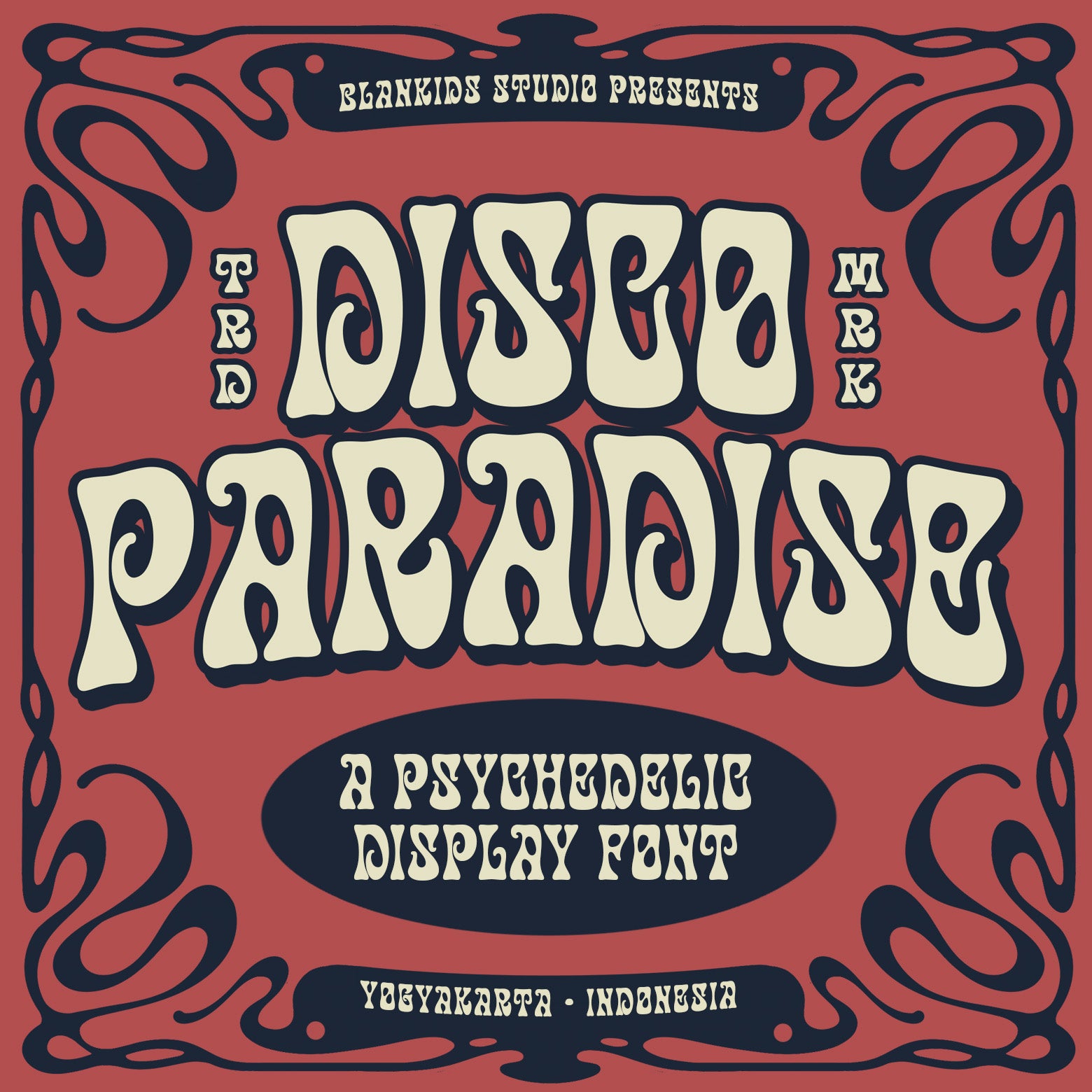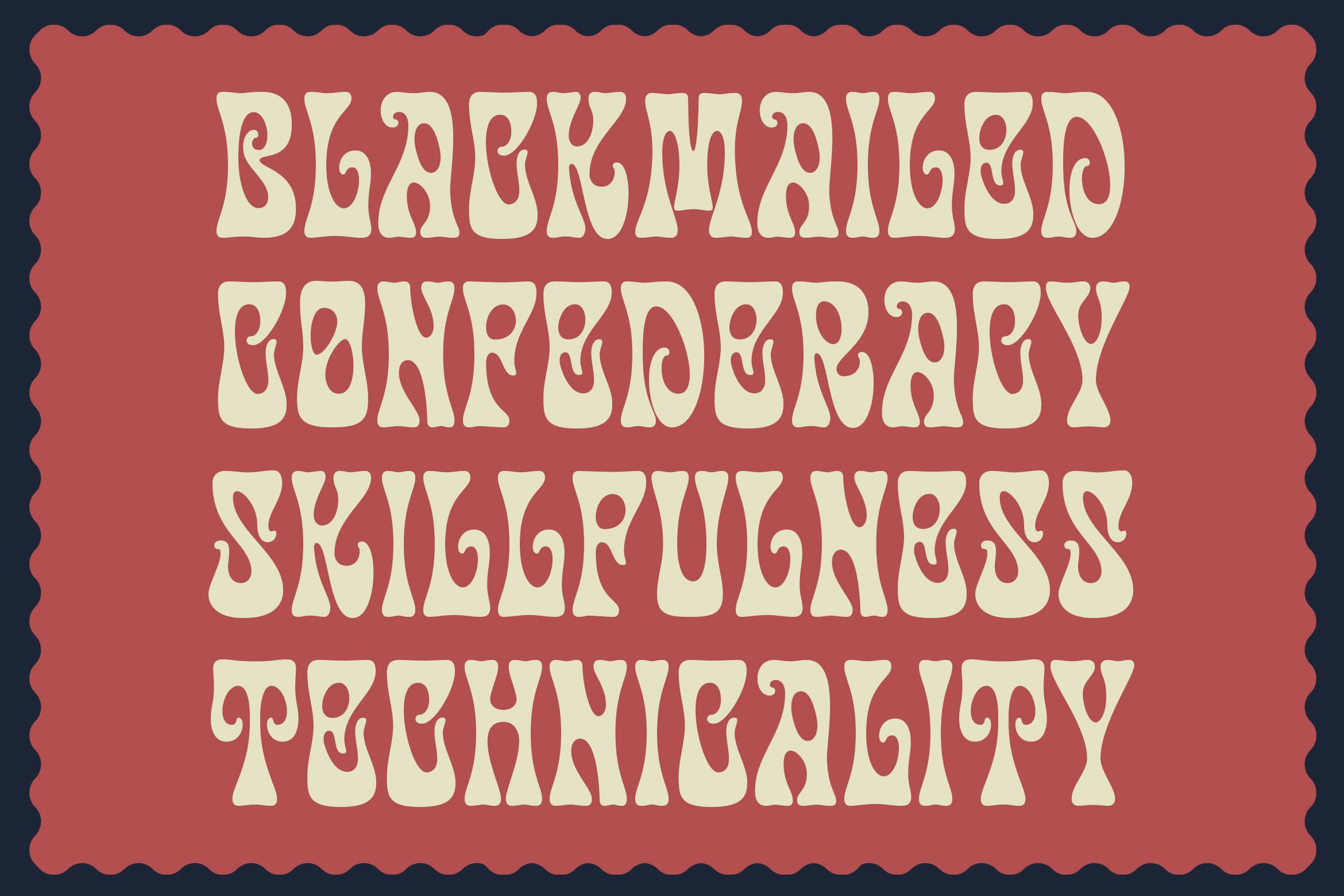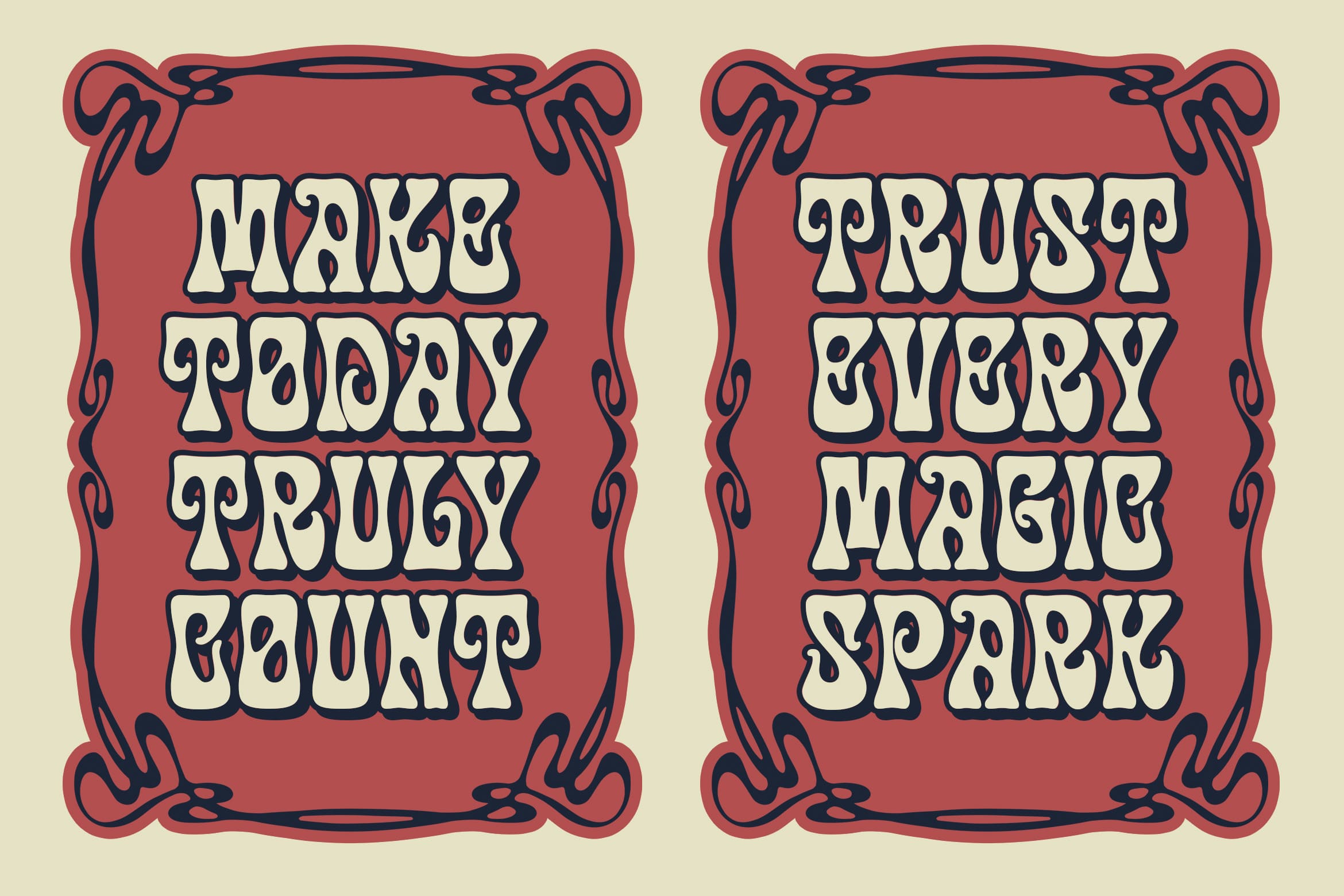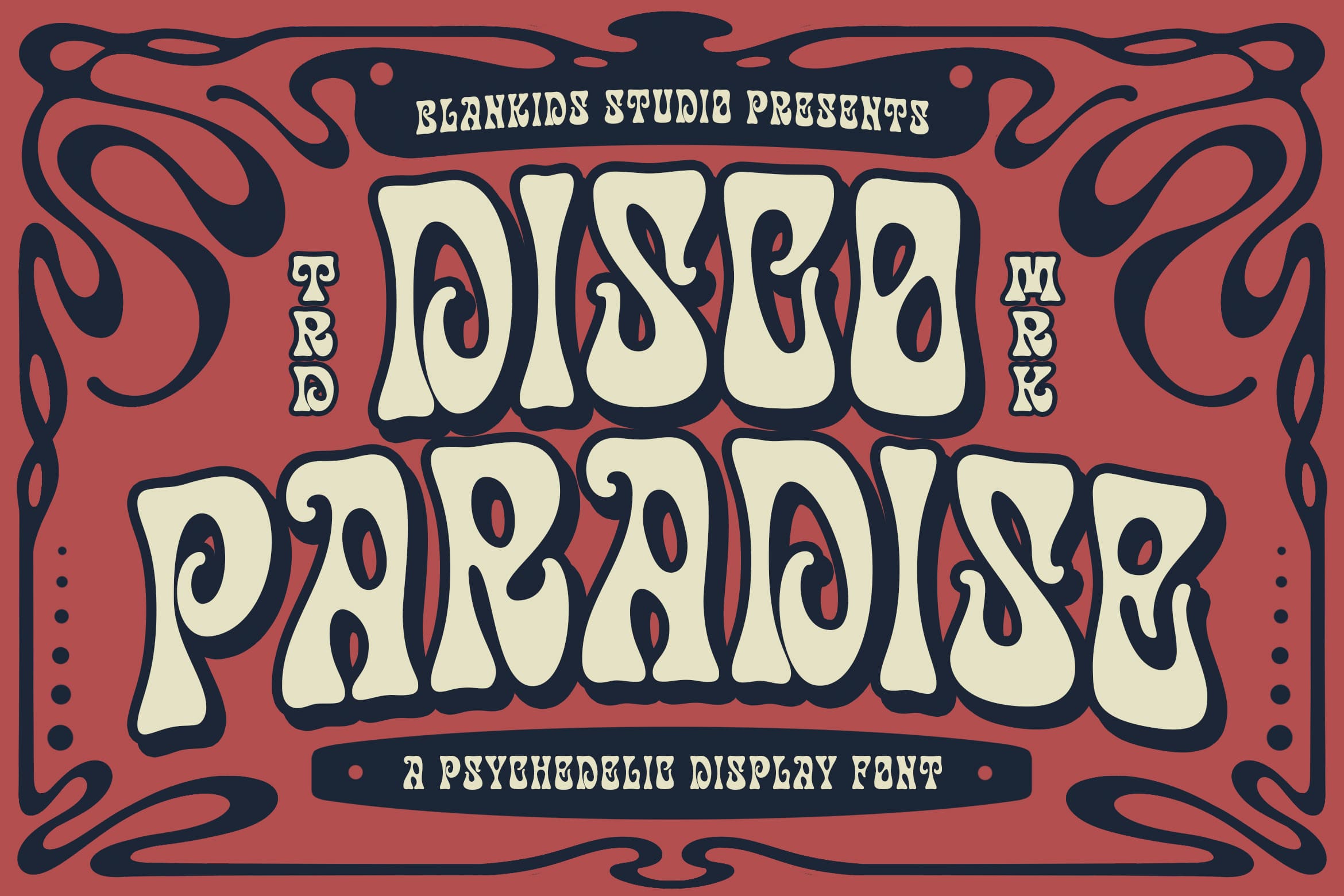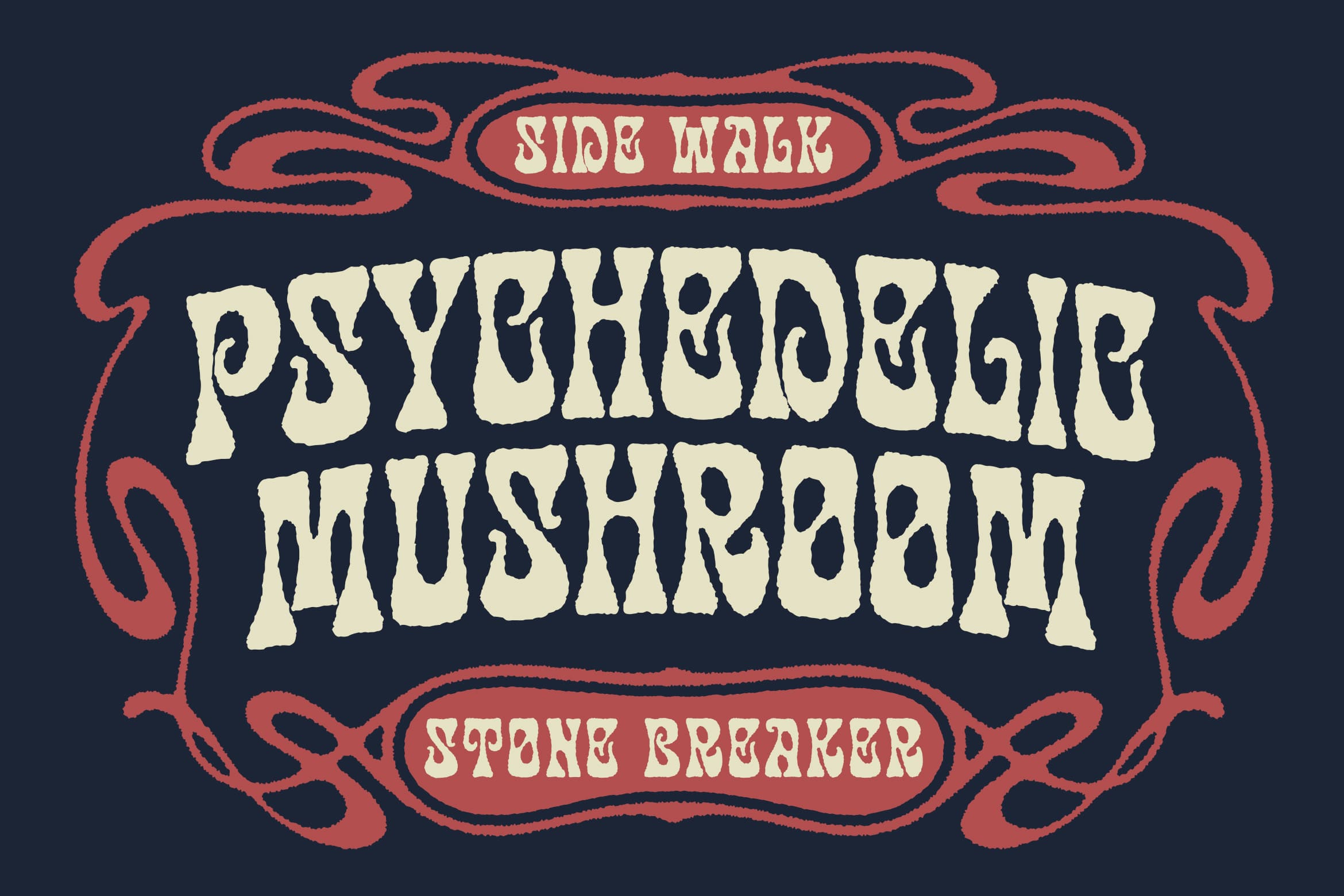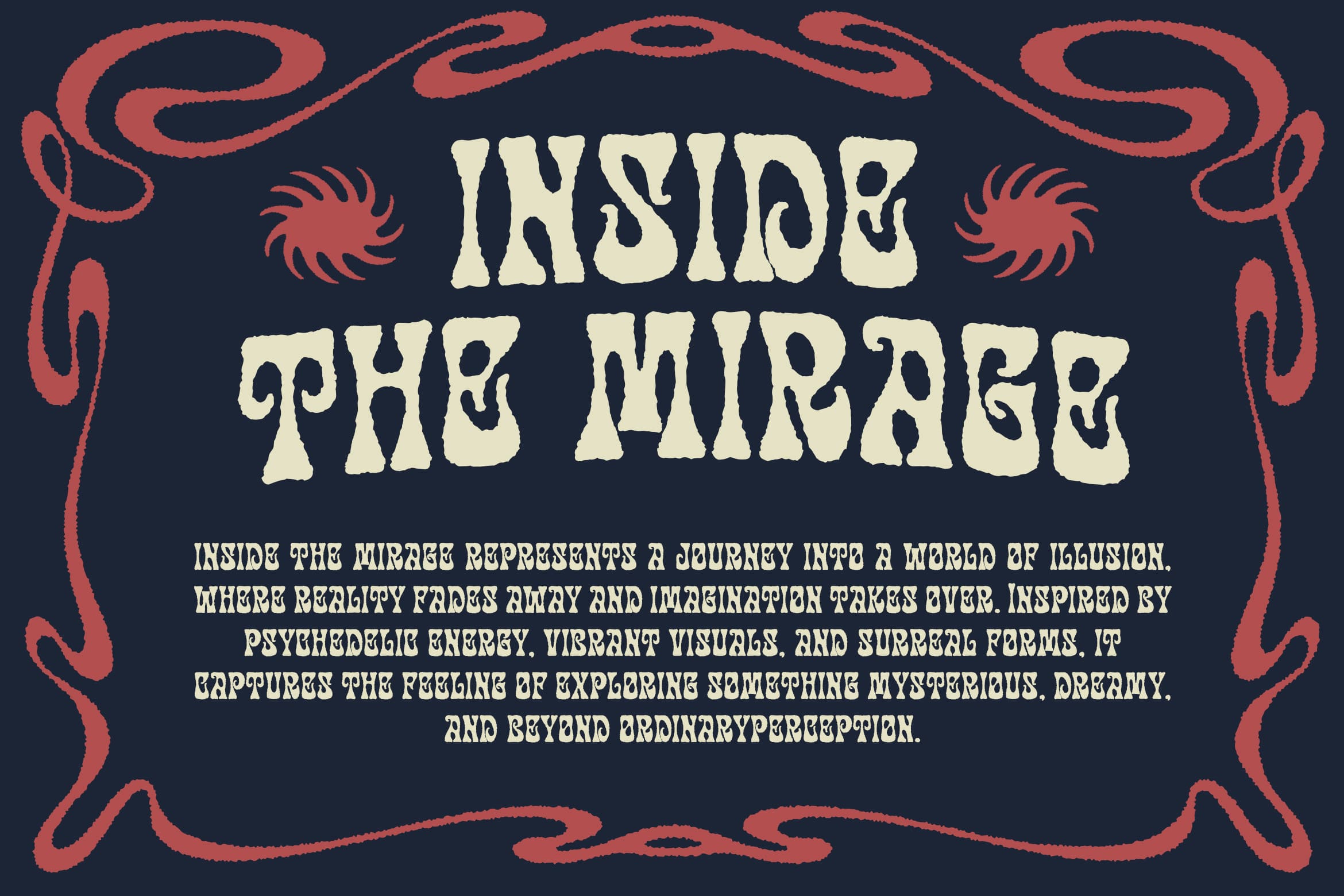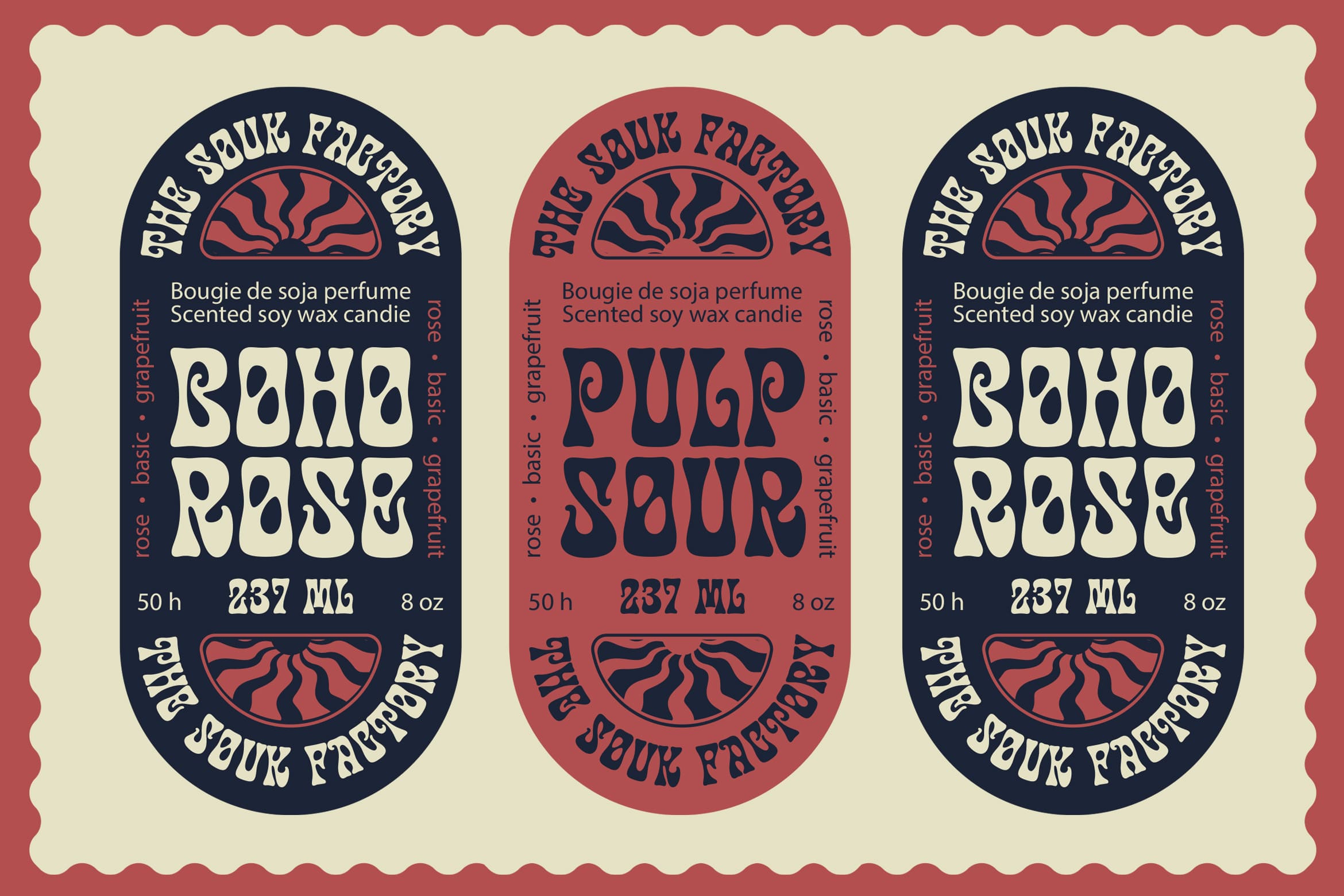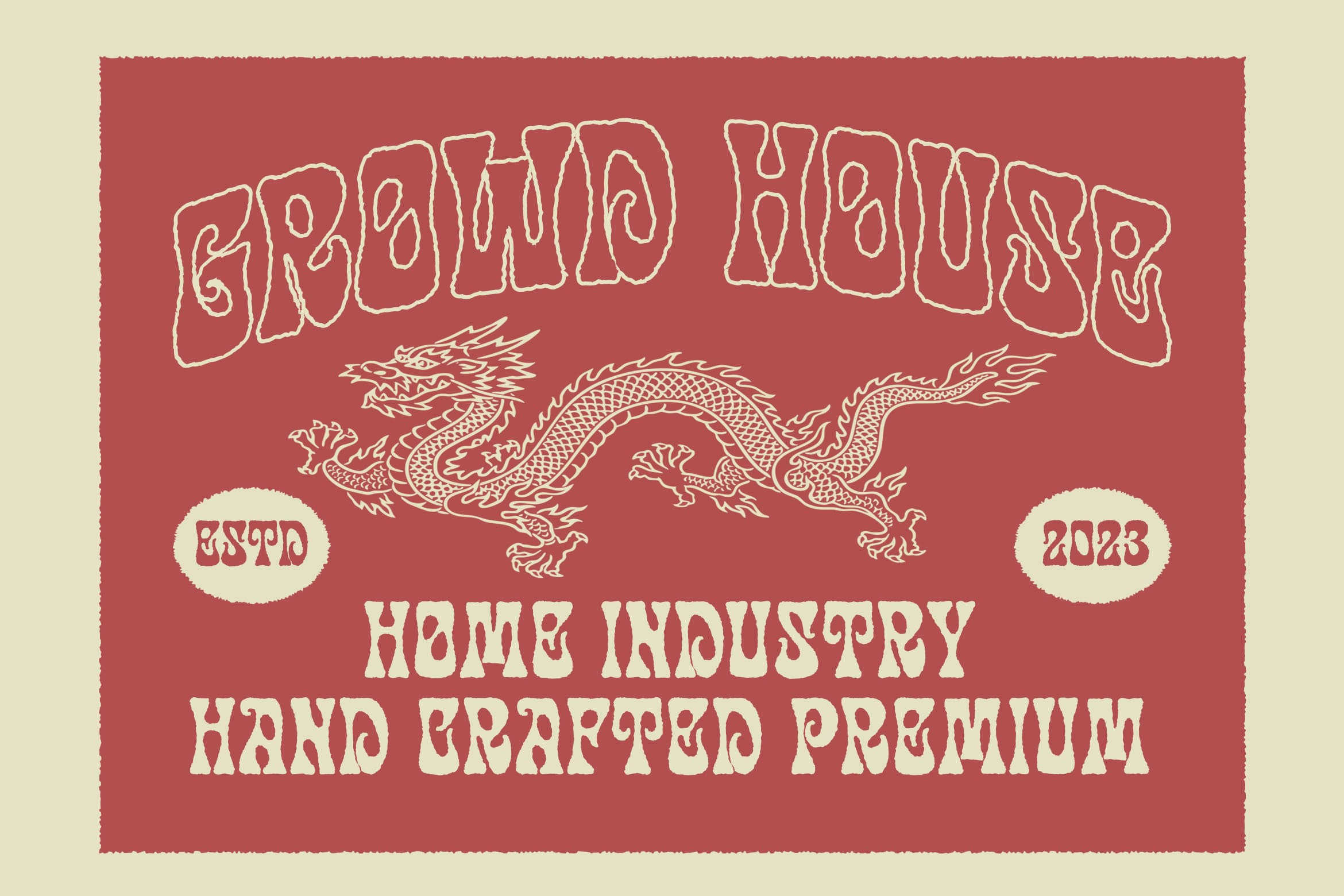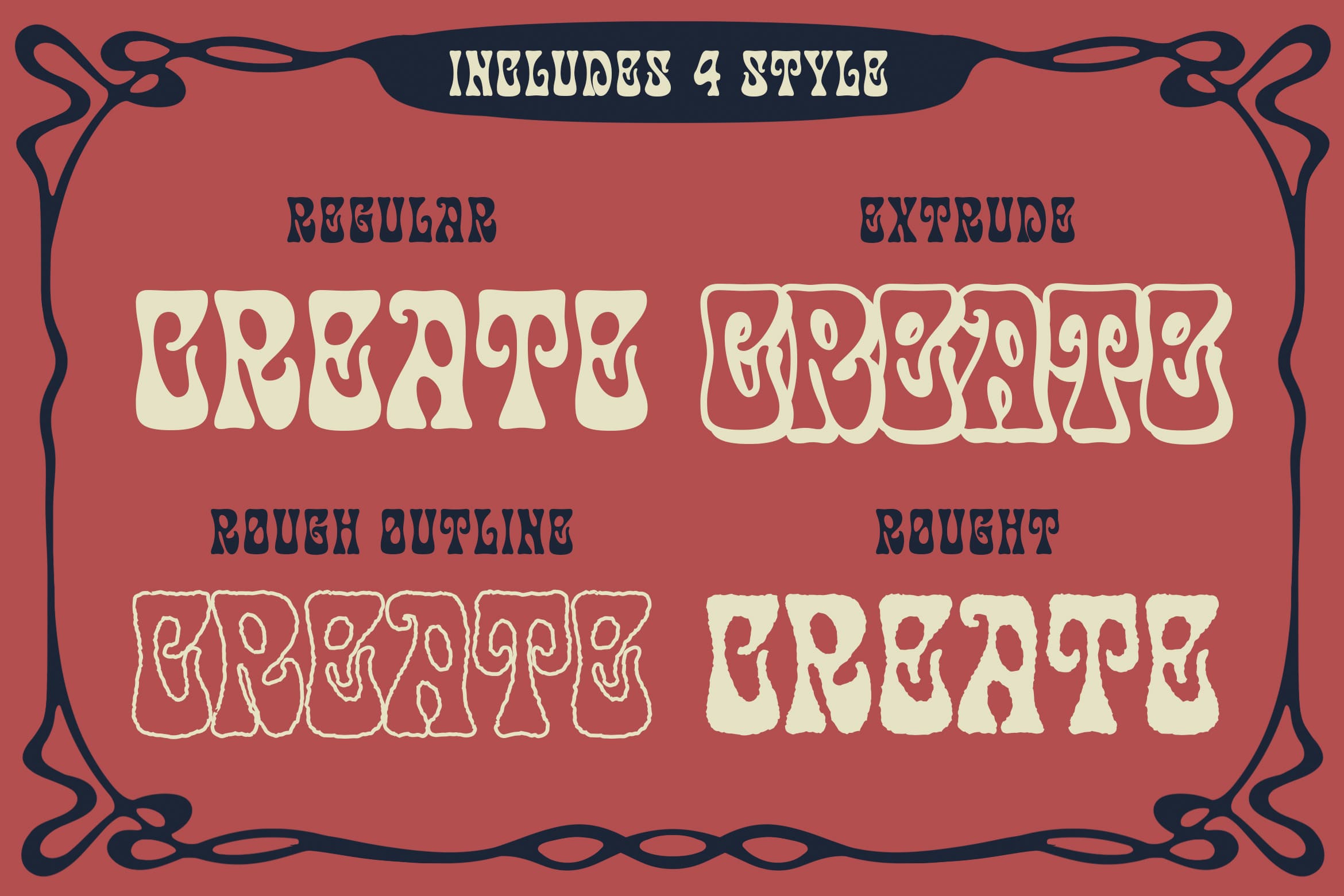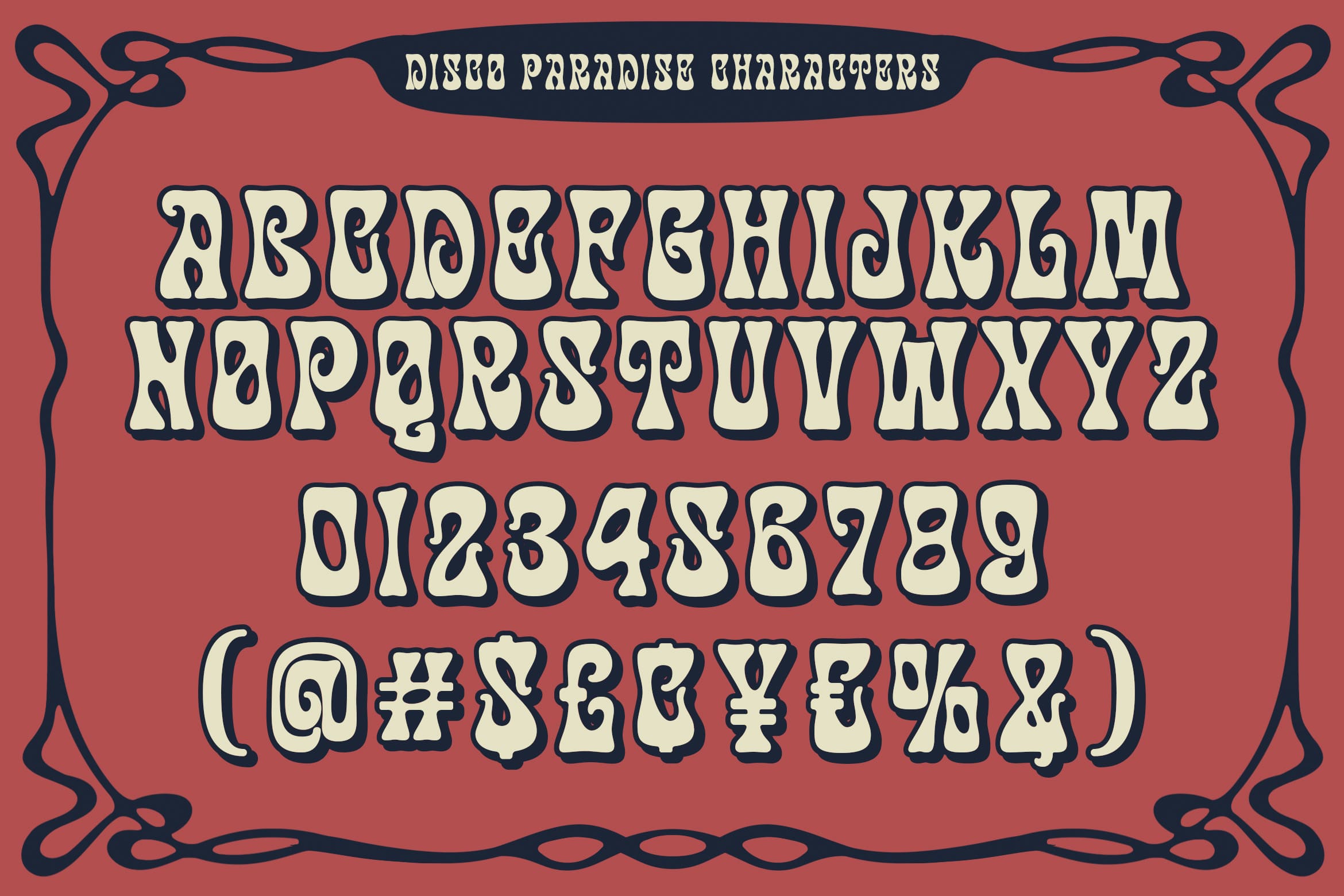
Disco Paradise – a Psychedelic Font
Disco Paradise is a bold psychedelic display font inspired by the vibrant spirit of 70s disco culture, groovy typography, and vintage retro aesthetics. Designed with fluid curves, funky letterforms, and eye-catching character, this font is perfect for posters, album covers, branding, packaging, merchandise, and creative design projects. Disco Paradise brings nostalgic retro energy and authentic psychedelic vibes, making every design stand out with a unique vintage personality.
Disco Paradise is a bold psychedelic display font featuring fluid curves and funky letterforms, inspired by 70s disco culture and vintage retro aesthetics. The product includes multiple file formats such as .otf and .ttf for regular, extruded, rough, and rough outline styles.